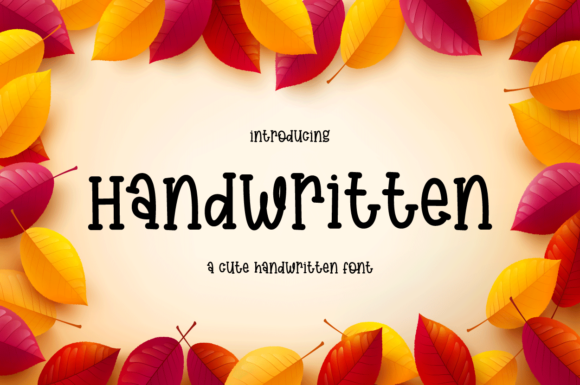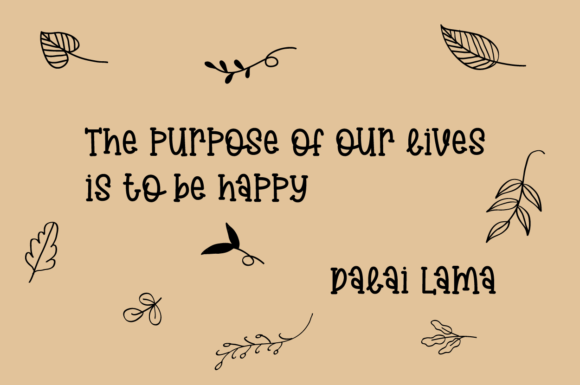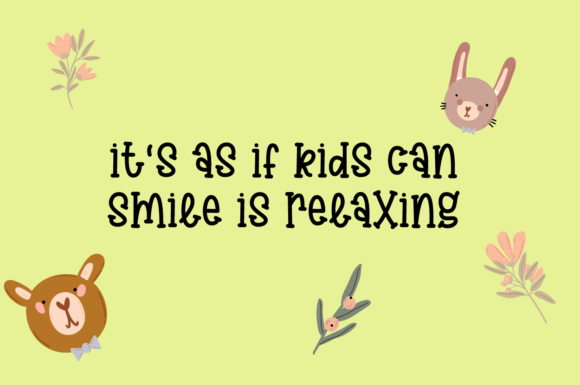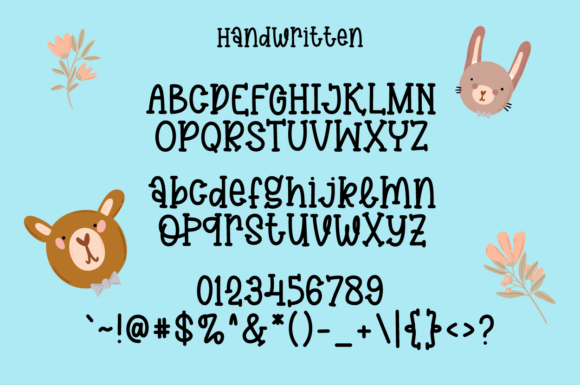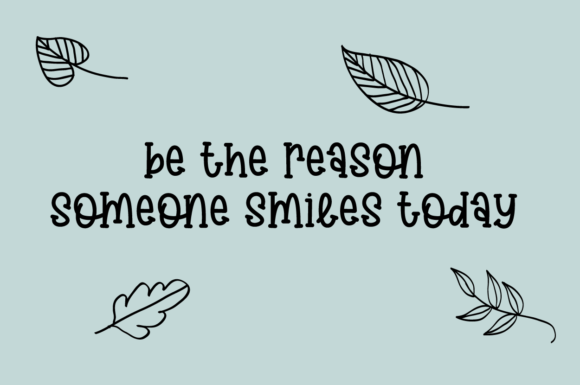
Handwritten Font
About Handwritten Font
Handwritten is a cute, quirky and informal handwritten font. It can easily be matched to an incredibly large set of projects, so add it to your creative ideas and notice how it makes them stand out!